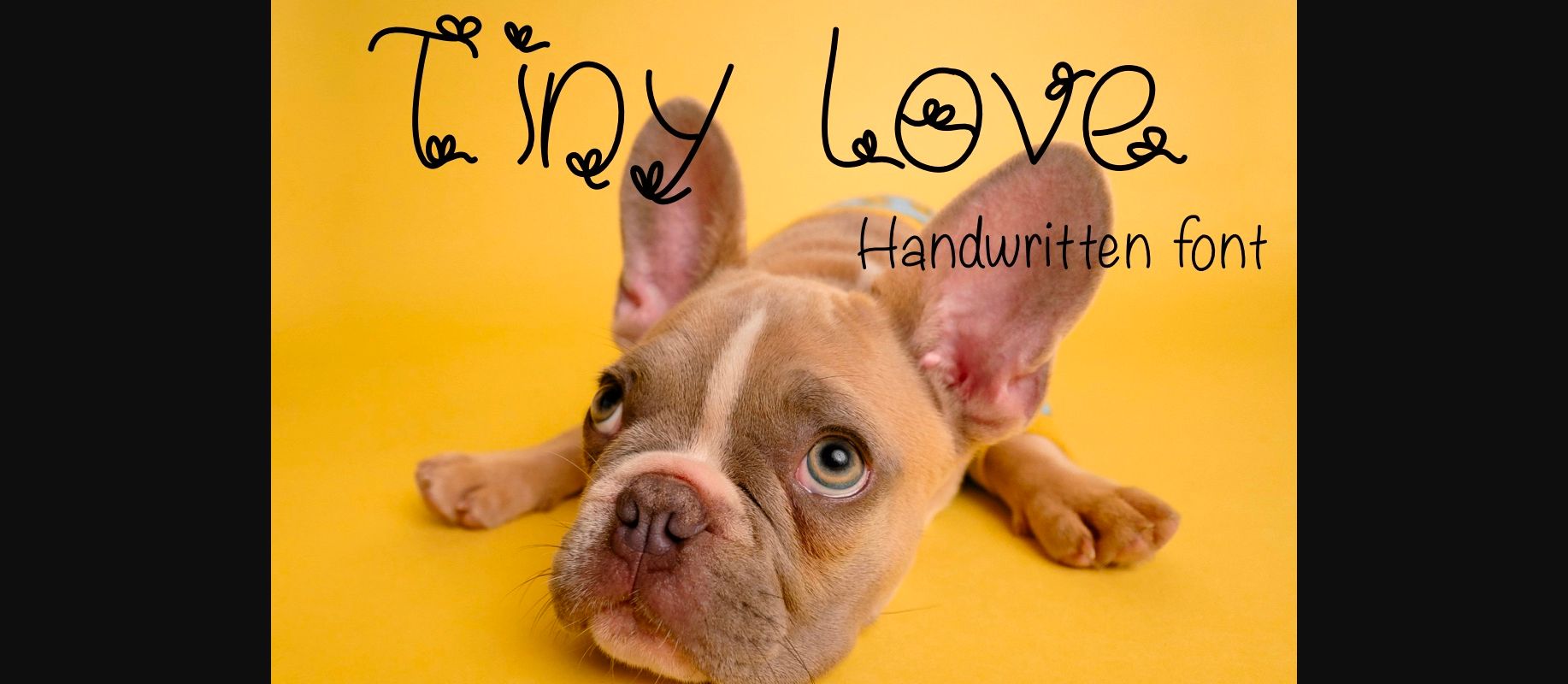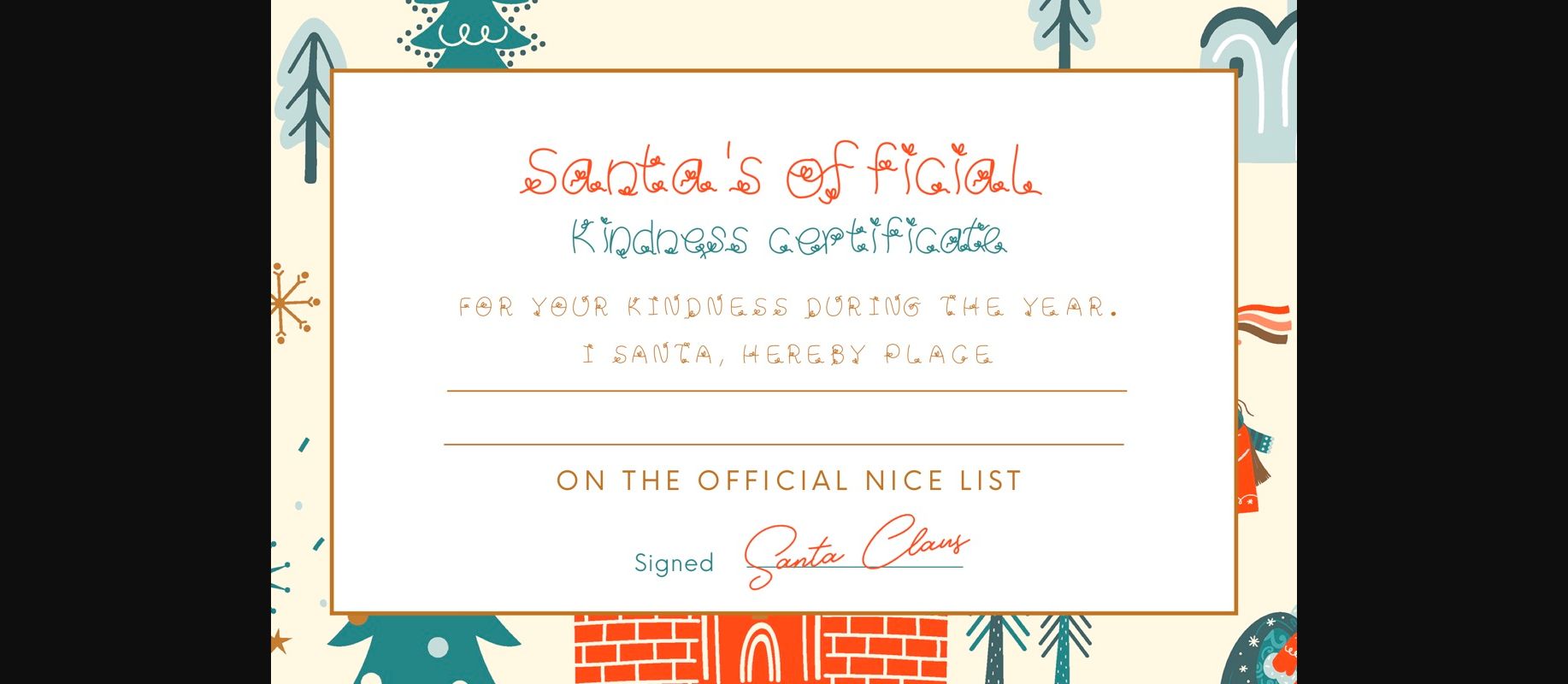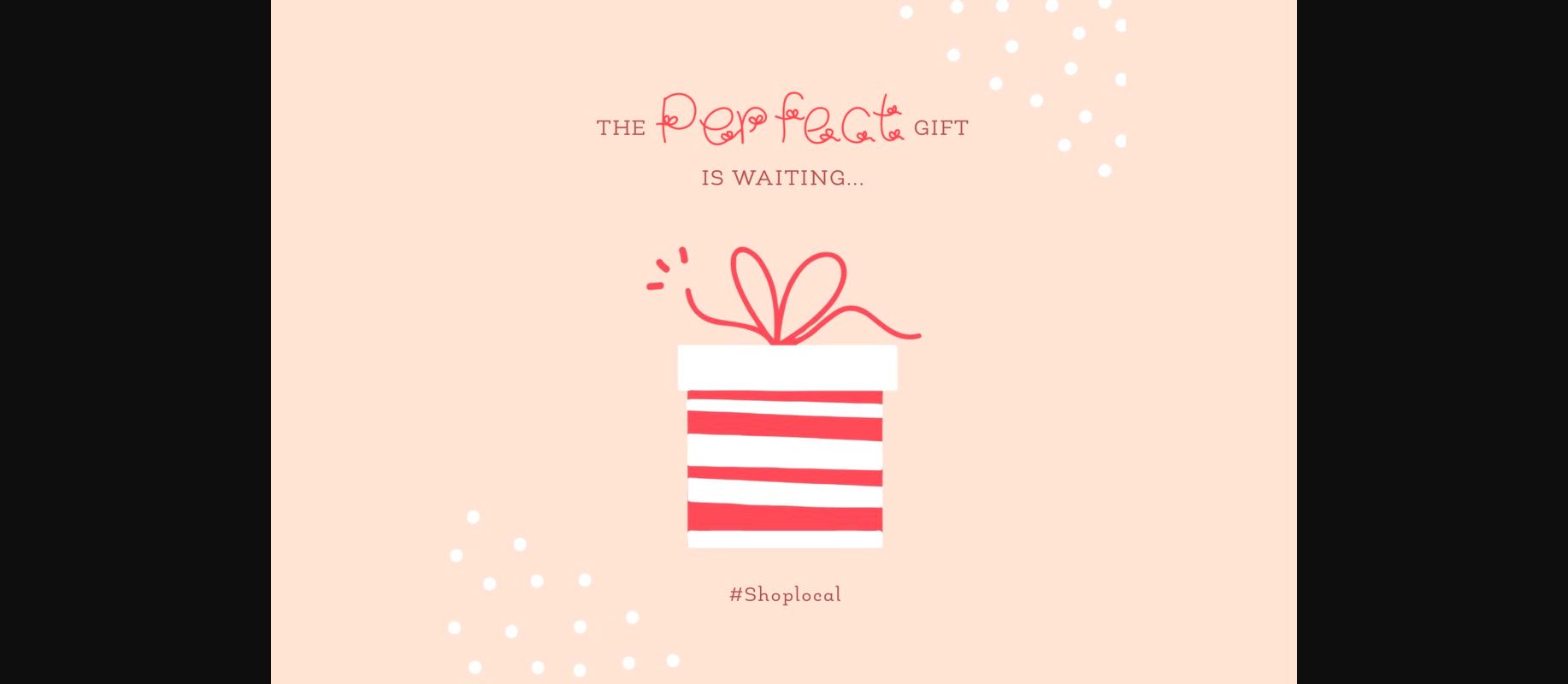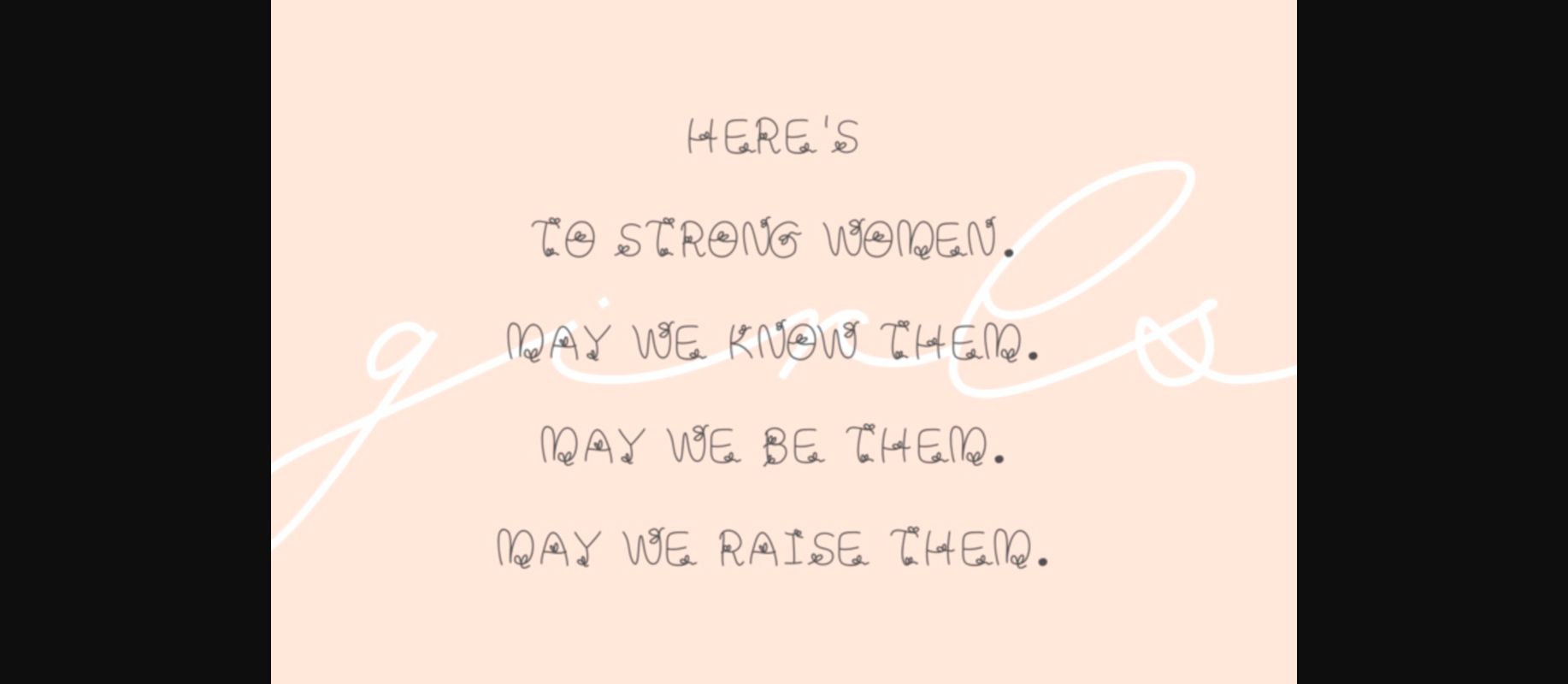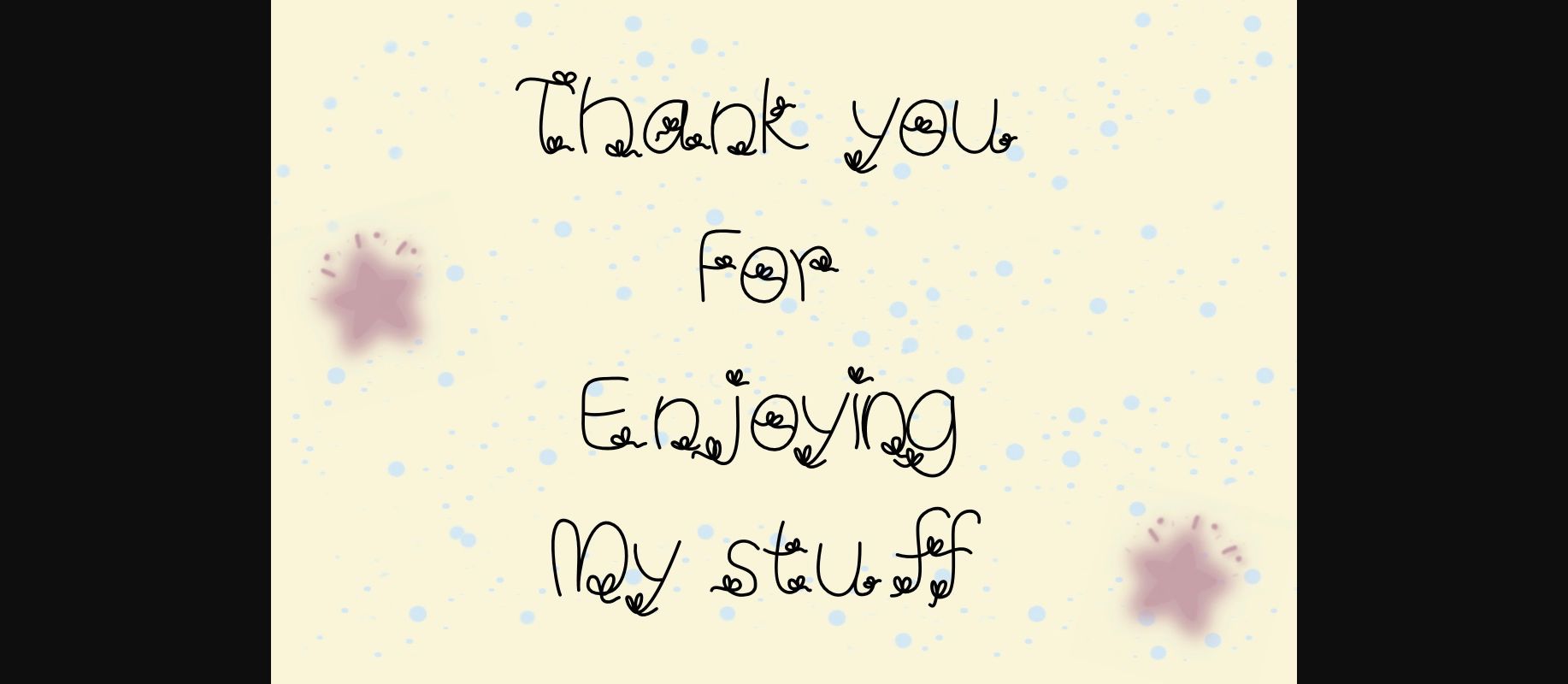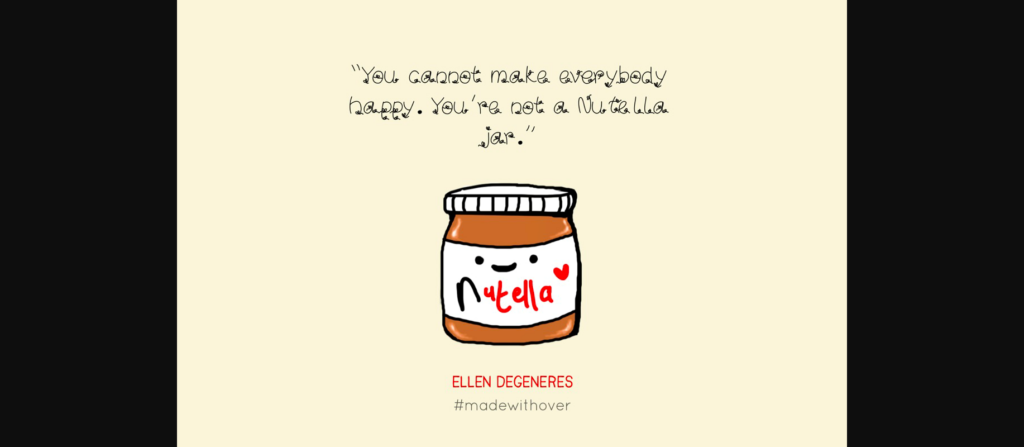
Tiny Love Font
About Tiny Love Font
Tiny love is cute and unique decorative font. Get inspired by its modern look and feel, and elevate any craft project to the highest level. It looks stunning on wedding invitations, thank you cards, quotes, greeting cards, logos, business cards and more.